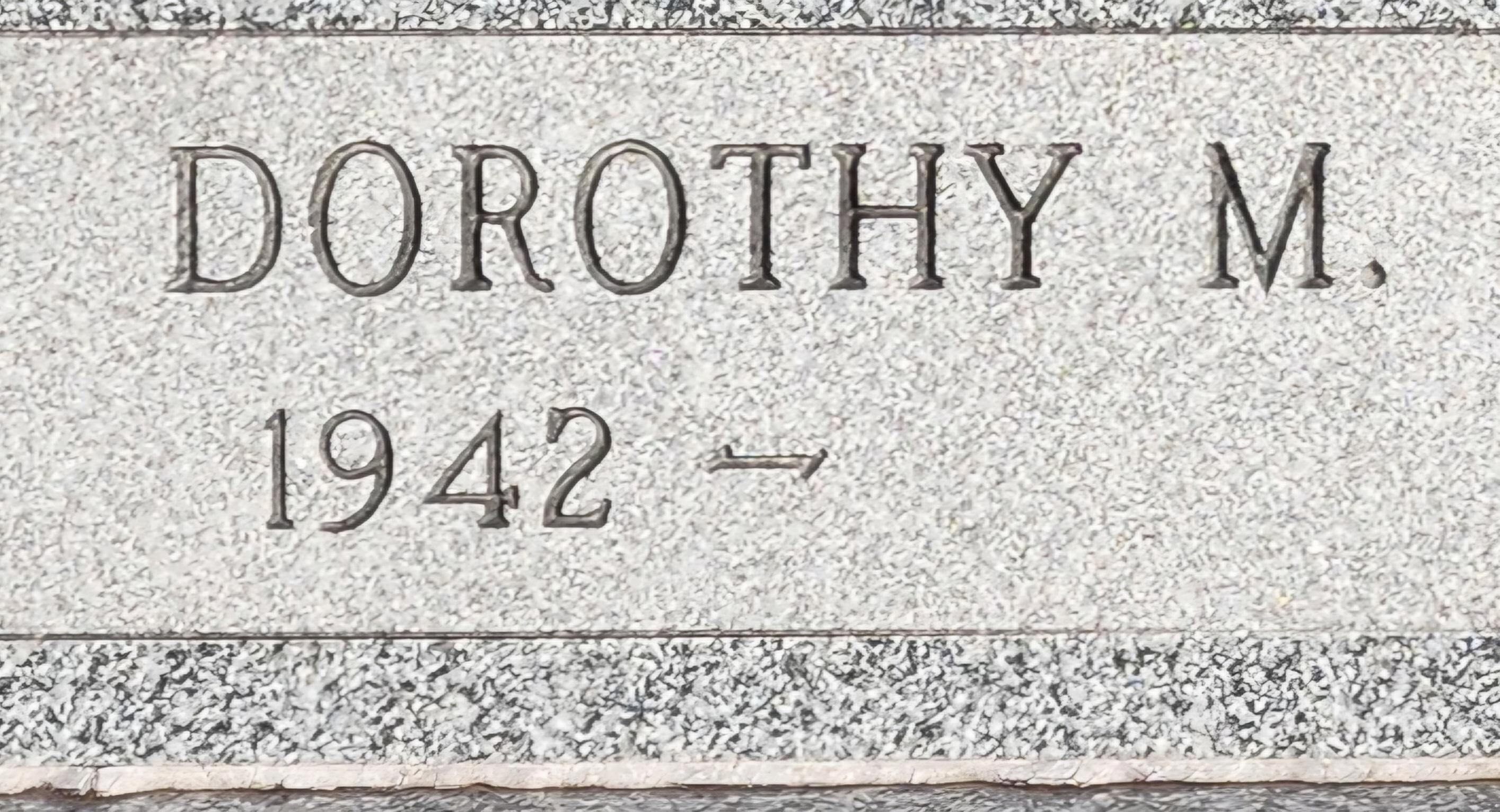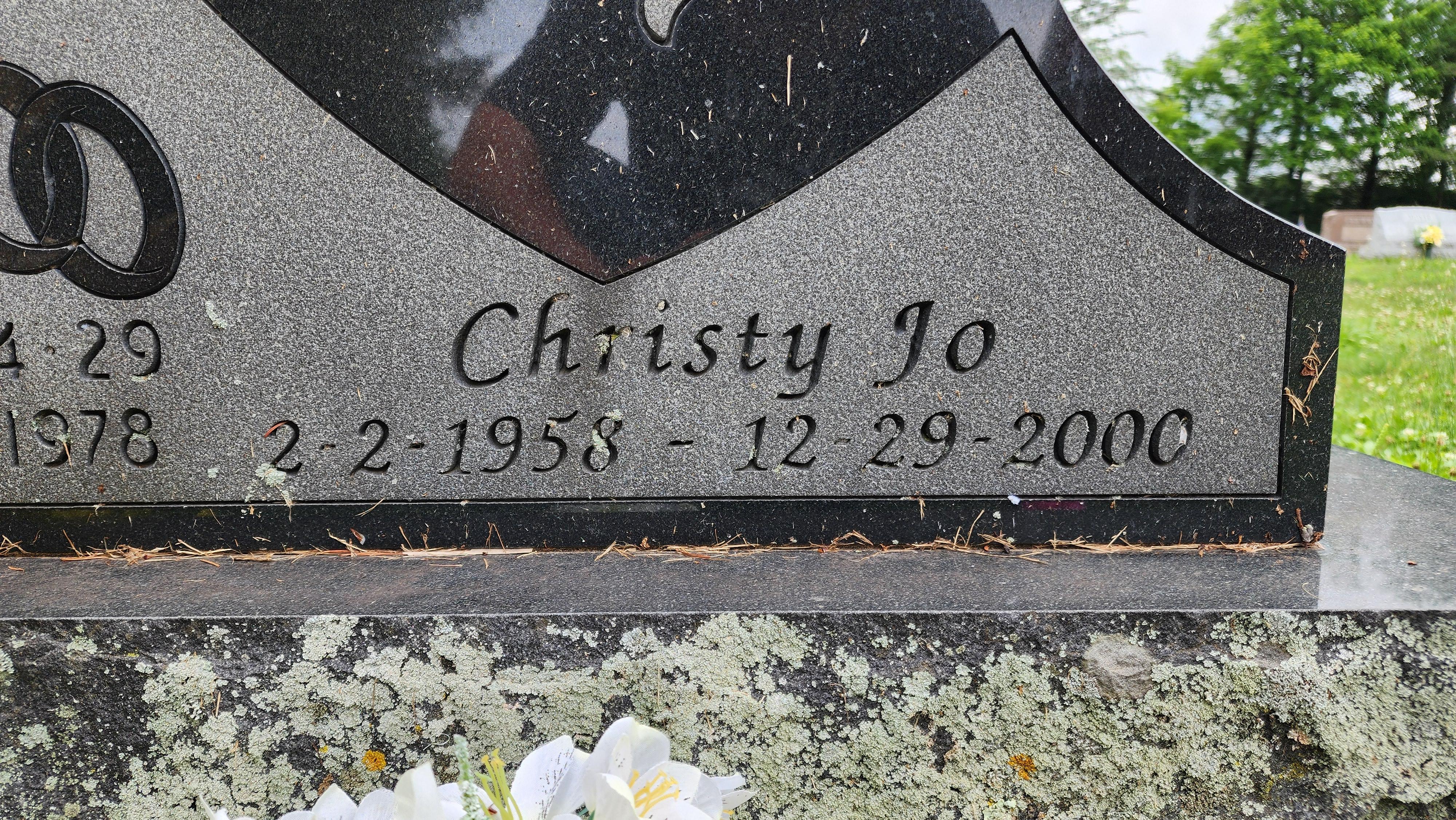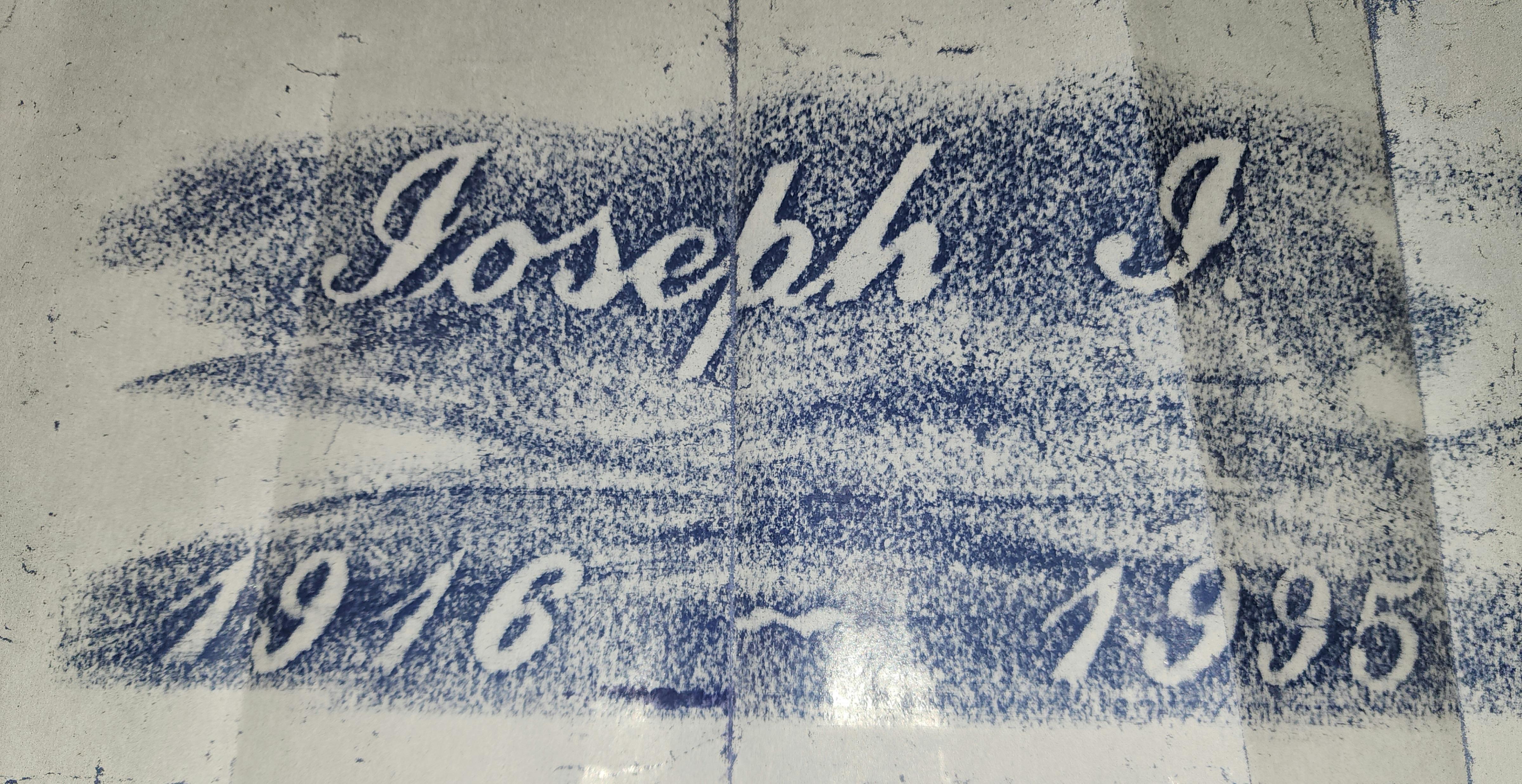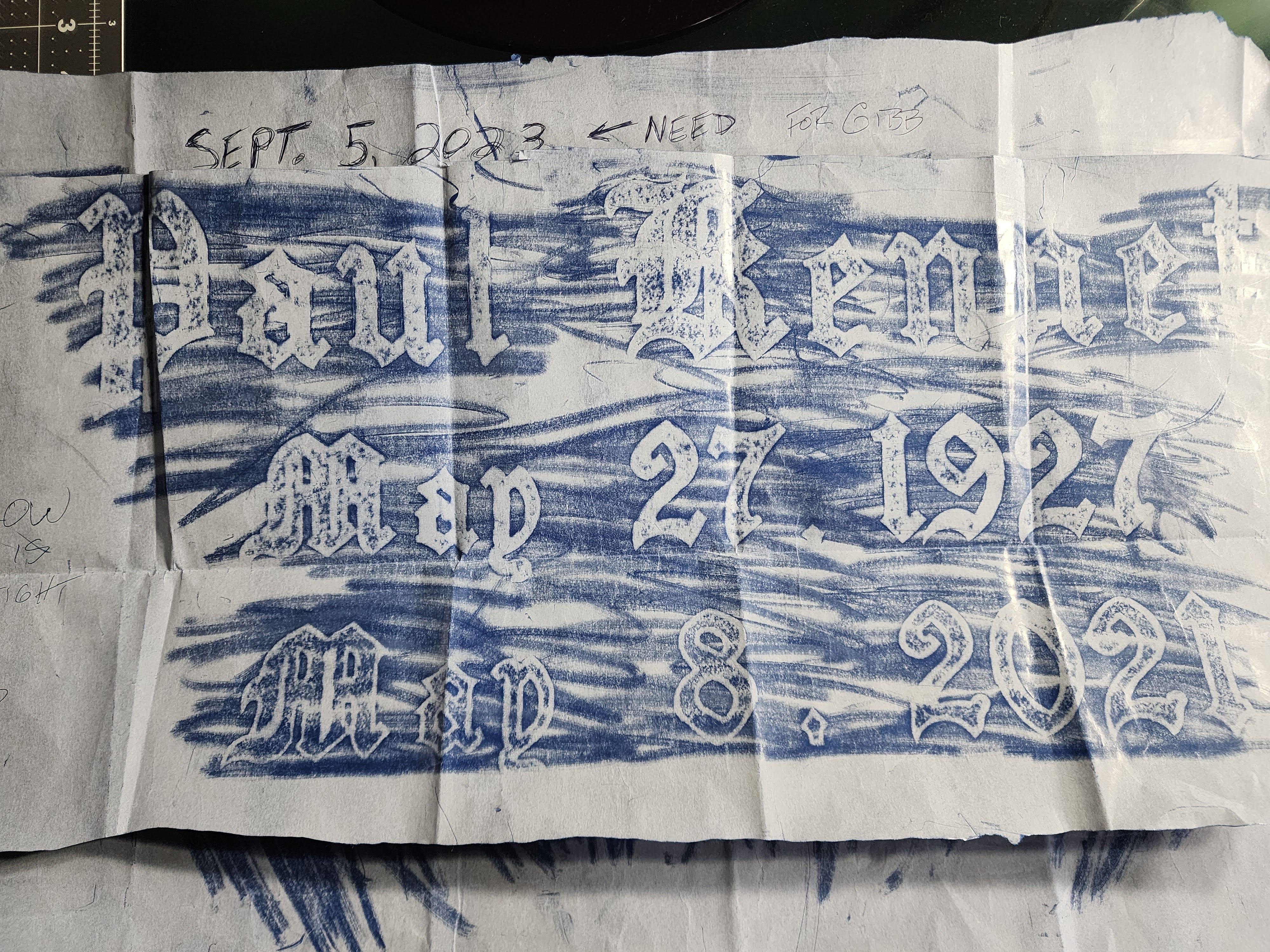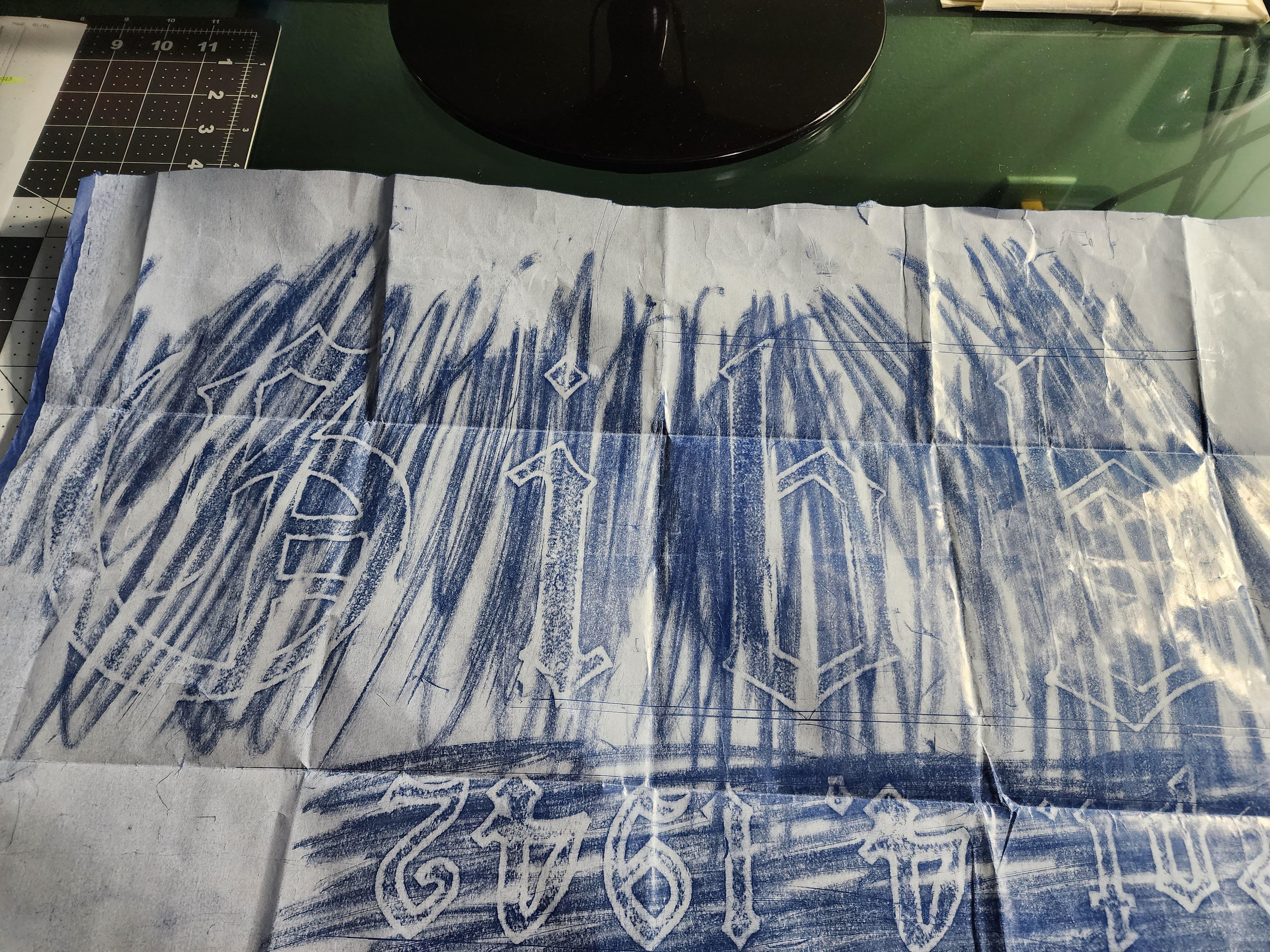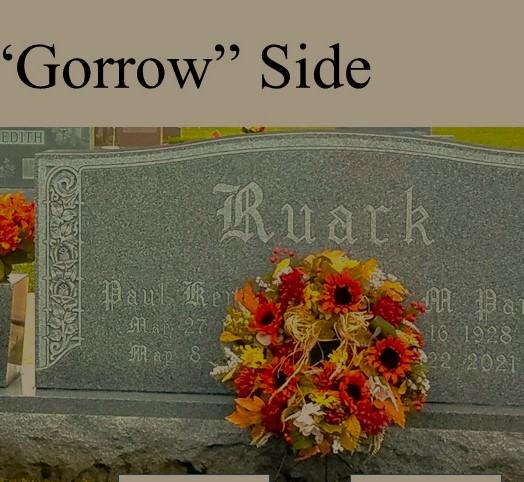
ShafferX89 Profile Topics Started Replies Created Engagements Favorites Search replies: Forum Replies Created Viewing 15 posts - 1 through 15 (of 20 total) 1 2 → Author Posts August 19, 2026 at 2:20 pm in reply to: Font id #13239 ShafferX89Participant OK Thanks July 16, 2026 at 12:45 pm in reply to: Font id #13107 ShafferX89Participant Ok July 15, 2026 at 11:10 am in reply to: Font id #13099 ShafferX89Participant Hey so the regular one is too skinny and the bold is bit too wide is there and is there one in between there’s so many different ones July 1, 2026 at 3:04 pm in reply to: Font id #13035 ShafferX89Participant Thanks June 23, 2026 at 9:40 pm in reply to: need help #13001 ShafferX89Participant Hey I been looking for this for long time and the guy from monument shop by me he uses it, it’s from monu cad. They said to call them and will give it to you that what he said to me. November 19, 2024 at 11:23 pm in reply to: Font id #11174 ShafferX89Participant Ah ok ty November 8, 2024 at 5:23 am in reply to: Font id #11137 ShafferX89Participant Ok. Ya that’s what I have. Thanks for the input on this forum November 6, 2024 at 6:20 pm in reply to: Font id #11128 ShafferX89Participant May 3, 2024 at 6:57 am in reply to: Font id #10294 ShafferX89Participant OK here this too December 5, 2023 at 2:06 pm in reply to: Font id #9813 ShafferX89Participant Ty October 27, 2023 at 2:46 pm in reply to: Font ID #9707 ShafferX89Participant OK ty September 29, 2023 at 3:23 pm in reply to: font id #9587 ShafferX89Participant thanks September 29, 2023 at 10:51 am in reply to: font id #9584 ShafferX89Participant they are frosted outline September 29, 2023 at 10:47 am in reply to: font id #9583 ShafferX89Participant September 29, 2023 at 10:45 am in reply to: font id #9582 ShafferX89Participant Author Posts Viewing 15 posts - 1 through 15 (of 20 total) 1 2 →